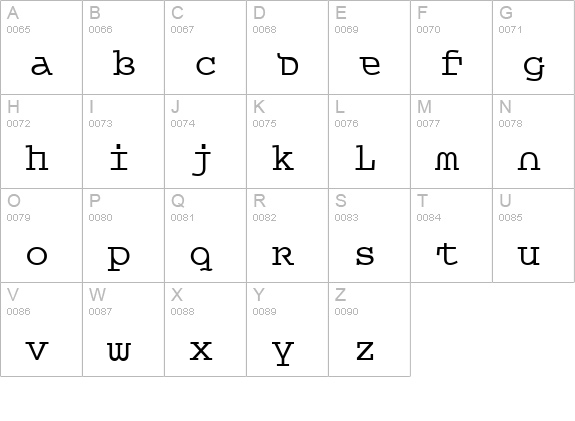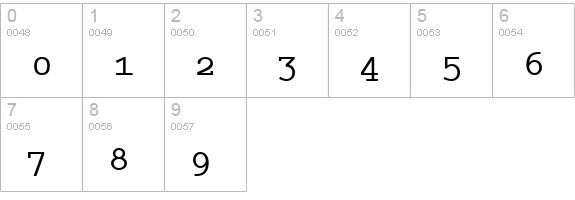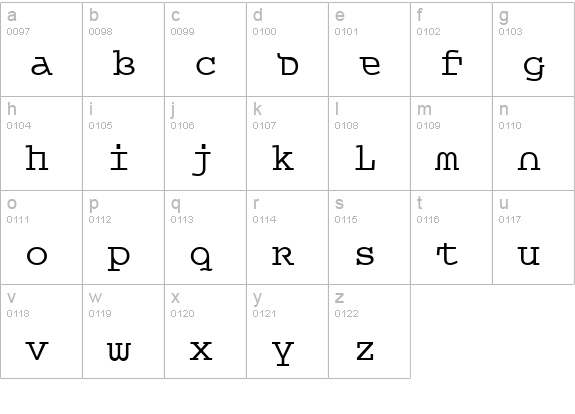
Queer Theory is a modern and innovative font that challenges traditional design norms. Its bold and unique characters embody the spirit of diversity and inclusion. This versatile typeface is perfect for making a statement and standing out from the crowd. With its striking presence and unconventional style, Queer Theory is sure to capture attention and spark conversations. This font is freely available to download at FontsMarket.com, allowing you to unleash your creativity without any restrictions. Whether you're designing posters, logos, or social media graphics, Queer Theory offers endless possibilities for expressing yourself and breaking free from the ordinary. Embrace the power of individuality and make a bold statement with Queer Theory.